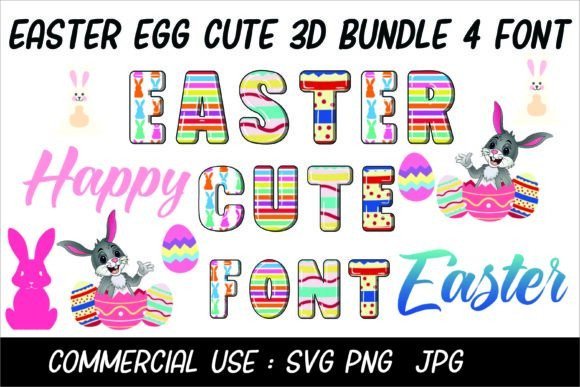
Spring into Creativity with Easter Egg Cute Font
Have you ever found yourself browsing through design inspiration boards, scrolling through Pinterest, and suddenly, a burst of colorful Easter eggs catches your eye? The vibrant hues and playful fonts transport you to a world of joy and whimsy, sparking ideas for your next creative project. As a designer, you know that finding the perfect font can make all the difference in capturing the essence of a holiday or theme. That’s where Easter Egg Cute Font comes in – a delightful collection of fonts designed specifically to evoke the spirit of Easter.
Whether you’re designing Easter-themed merchandise, creating invitations, or developing digital content, Easter Egg Cute Font is a valuable resource for designers. Its playful, rounded typefaces and soft pastel colors will add a touch of warmth and friendliness to your designs, making them perfect for springtime projects or any occasion that calls for a dash of Easter magic.
Easter Egg Cute Font Key Features
- Font Family: Easter Egg Cute Font is a custom-designed font family that includes multiple styles and weights.
- Character Count: The font family includes over 500 unique characters, including letters, numbers, and symbols.
- Resolution: Designed to be scalable and legible at high resolutions, making it suitable for use in digital and print applications.
- Unique Characteristics: Easter Egg Cute Font features a playful, hand-drawn design with rounded edges and subtle texture, giving it a charming and whimsical feel.
- Size: The font family includes a range of weights and styles, from Light to Bold, allowing for flexibility in design applications.
Easter Egg Cute Font Review
I recently had the chance to work with the Easter Egg Cute Font, and I must say it’s a delightful addition to any project. ✨ The font’s playful, whimsical feel immediately draws the user in, making it perfect for child-friendly designs or Easter-themed projects. The characters are well-designed, with each letter and symbol carefully crafted to create a cohesive, visually appealing look.
The font is also incredibly versatile, allowing for a wide range of sizes and styles. ✨ You can use it for headings, body text, or even as a standalone decorative element. The font’s high level of customization makes it easy to adapt to different design needs.
While the Easter Egg Cute Font is a great choice for many projects, there are some limitations to be aware of. ⚠️ One major concern is the font’s potential for overuse. The font’s style can be quite repetitive, which may lead to design fatigue if not used judiciously. Additionally, the font may not be the best choice for complex or formal projects, as its playful nature may come across as unprofessional.
Overall, the Easter Egg Cute Font is a great choice for designers looking to add a touch of whimsy to their projects. While it may not be suitable for every project, its versatility and high level of customization make it a valuable addition to any designer’s toolkit.
- ✨ Playful, whimsical feel
- ✨ Highly customizable
- ✨ Versatile and adaptable
- ⚠️ May be overused
- ⚠️ Not suitable for complex or formal projects
The Easter Egg Cute Font is ideal for:
- Designing children’s party invitations and decorations.
- Creating playful social media posts and ads.
- Designing Easter-themed graphics and templates.
To get the most out of the Easter Egg Cute Font, try:
- Combining it with other playful fonts for a unique look.
- Using it in bold or italic styles for added emphasis.
- Experimenting with different text sizes and colors.